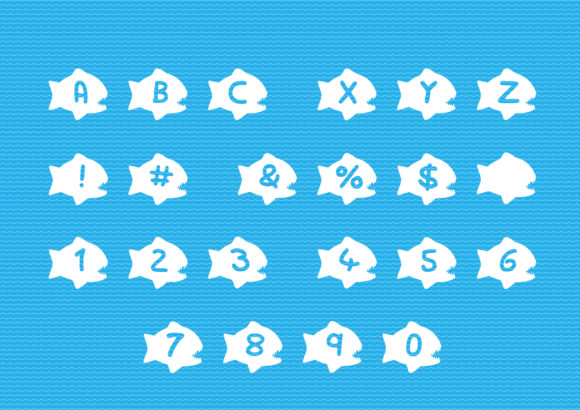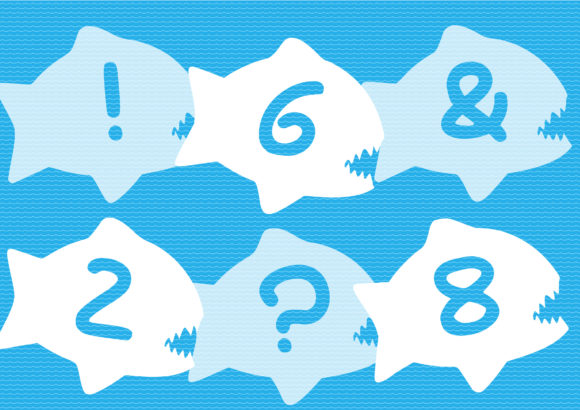
Introduction to Play Piranha Font
Imagine you’re designing the cover of a children’s book and you need a font that exudes fun and playfulness. You’re scrolling through your design resources, searching for the perfect font to bring your creative project to life. And then, you stumble upon it – the Play Piranha Font. Its fishy design is sure to capture the attention of your young audience and make your project stand out.
As a designer, you know the importance of having high-quality design resources at your disposal. That’s why we’re excited to share this free download with you. The Play Piranha Font is perfect for anyone looking to add a touch of whimsy to their creative projects. Whether you’re working on a storybook, a movie title, or a children’s design, this font is sure to be a valuable addition to your design arsenal.
With its transparent background and high-quality design, the Play Piranha Font is a versatile resource that can be used in a variety of creative projects. So why settle for a boring font when you can have one that’s as fun and inviting as a school of piranhas?
Key Features of Play Piranha Font
- High-quality design resource ideal for creative projects, available for free download
- Unique and playful typography with a transparent background, perfect for adding a pop of color and texture to designs
- Comes in a single weight, making it easy to use in a variety of design applications, from logos to typography-based art
- Perfect for designers looking for a fun and eye-catching font to add to their creative project, with a size range of 16-72 points
Honest Review: Play Piranha Font
As a designer, I’m always on the lookout for unique and high-quality design resources to elevate my creative projects. Recently, I had the chance to work with the Play Piranha Font, and I must say it’s been a game-changer.
- ✨ The font’s playful and quirky nature makes it perfect for projects that require a fun and lighthearted tone.
- ✨ The high-quality design ensures that the font looks crisp and clear, even when scaled up or down.
- ✨ The transparent background option allows for seamless integration with other design elements.
- ⚠️ The font’s limited character set may not be suitable for projects that require a wide range of characters, such as business reports or academic papers.
- ⚠️ The font’s design may not be suitable for projects that require a formal or professional tone.
Overall, I’m thoroughly impressed with the Play Piranha Font. Its unique design and high-quality construction make it a valuable addition to any designer’s toolkit. If you’re looking for a fun and creative font to spice up your next project, I highly recommend giving it a try.
Play Piranha Font
Using Play Piranha Font in Creative Projects
Play Piranha Font is suitable for various creative projects, including:
- Graphic design and branding
- Typography-based designs
- Infographics and presentations
Getting the Most Out of Play Piranha Font
For optimal results, use the font on a transparent background to showcase its unique features. You can also experiment with different font sizes, colors, and combinations to create visually appealing designs.
Design Tips
When using Play Piranha Font, consider the following tips:
- Use the font in conjunction with other design elements to create a cohesive look.
- Experiment with different font styles and combinations to add visual interest.
- Ensure the font is legible and easy to read, especially in presentations and documents.
Alternatives to Play Piranha Font
Comic Sans MS
Comic Sans MS is a classic sans-serif font suitable for creative projects that require a friendly and approachable tone. It’s available for free download and can be used for both personal and commercial projects. Comic Sans MS features a transparent background, making it a great option for designs where the font is the main focus.
Compared to Play Piranha Font, Comic Sans MS has a more playful and informal feel, making it ideal for projects that require a lighthearted tone. However, it may not be suitable for high-quality designs that require a more professional look.